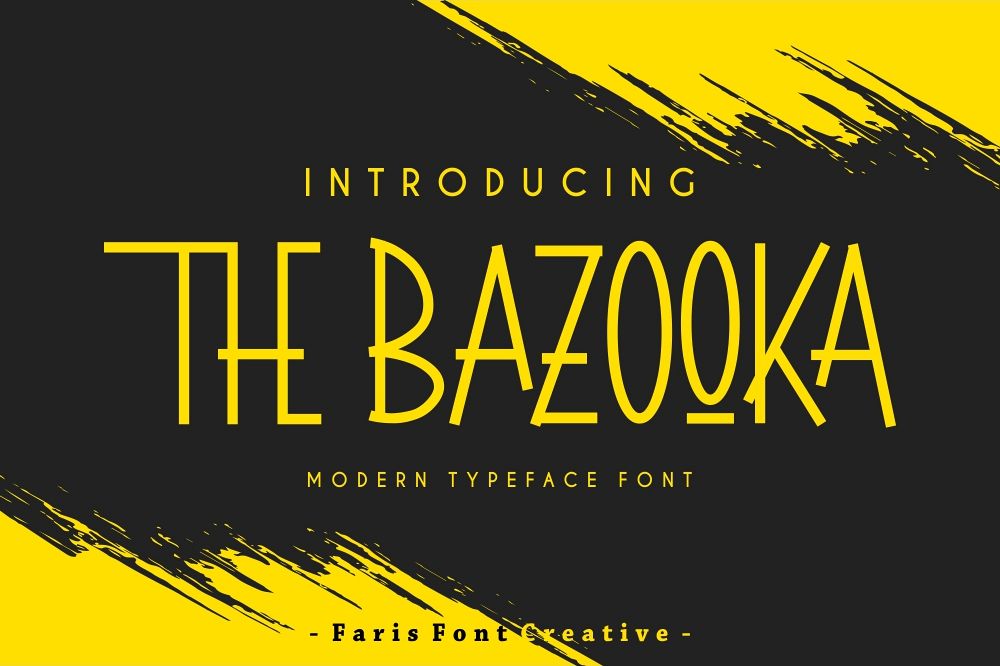
Bazooka
Bazooka is a Basic
Varios font that has unic and strong style it works perfectly in all sort of
photo, design projects like fashion, wedding, branding, and more.
Bazooka font
Also You can use Bazooka for logotype, headline, instagram post, greeting cards, invitations,